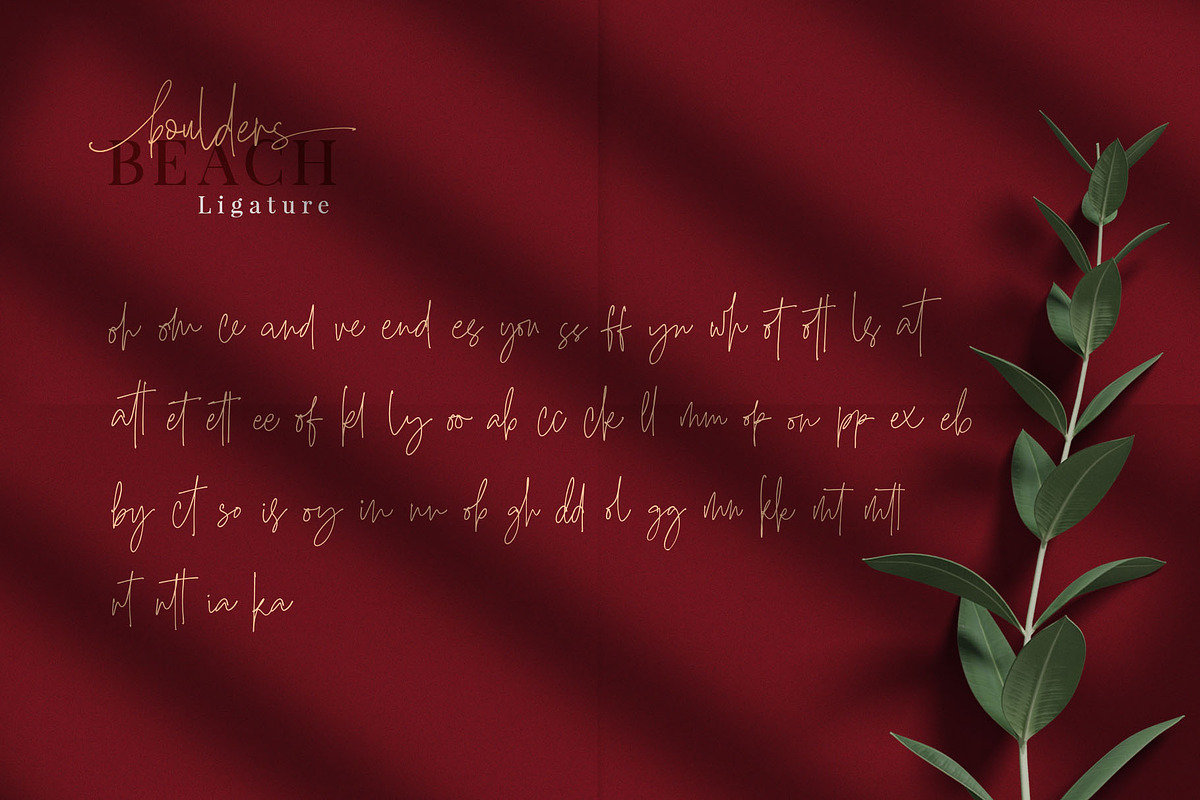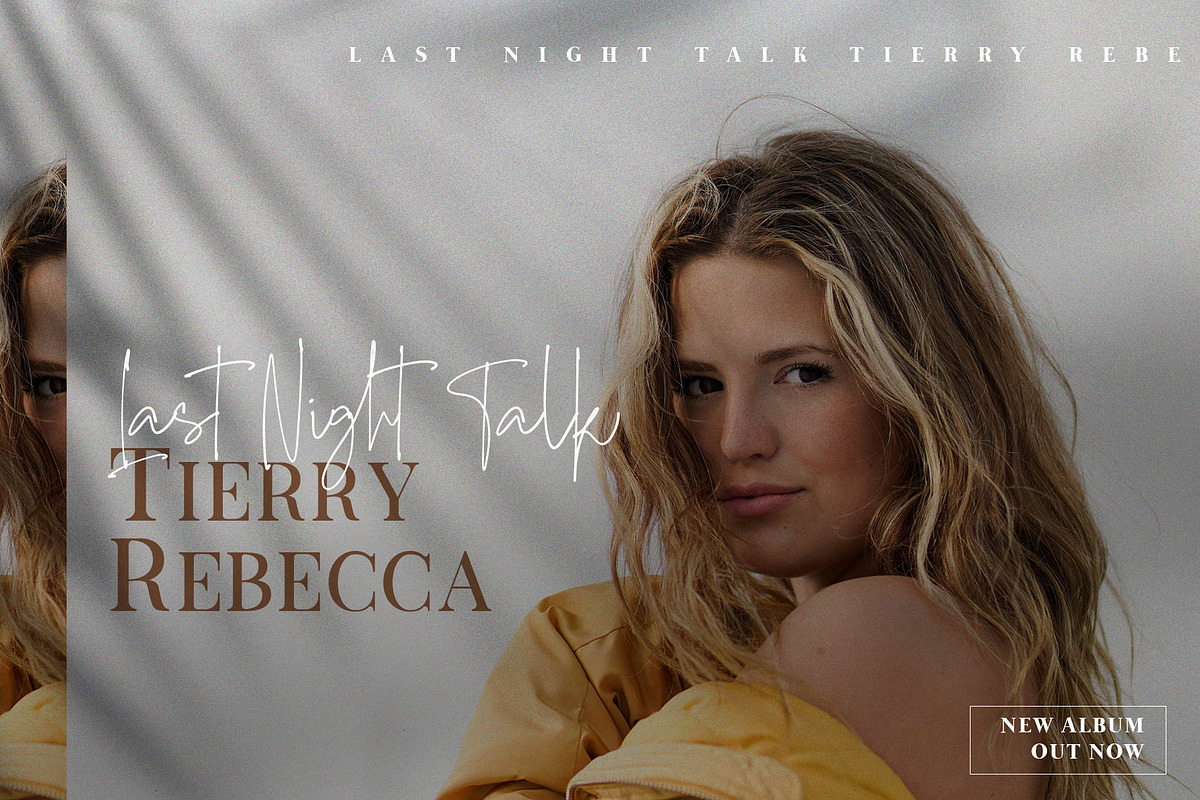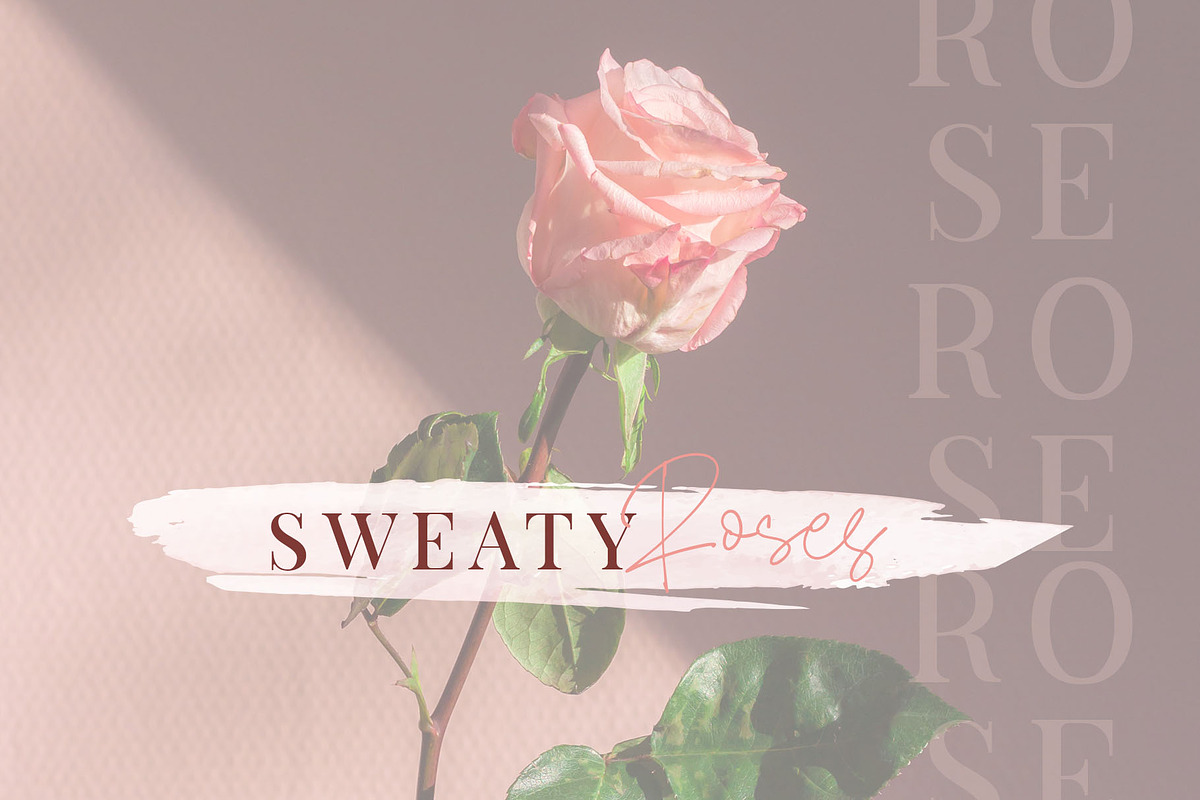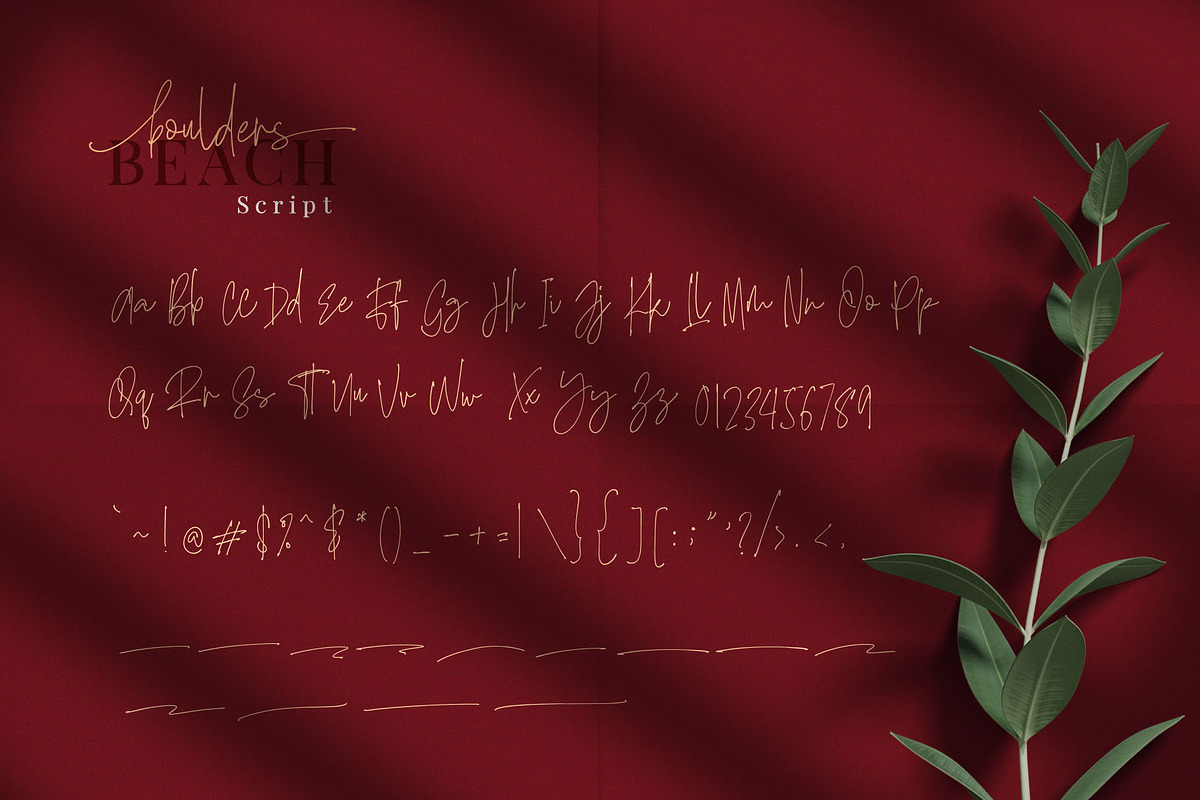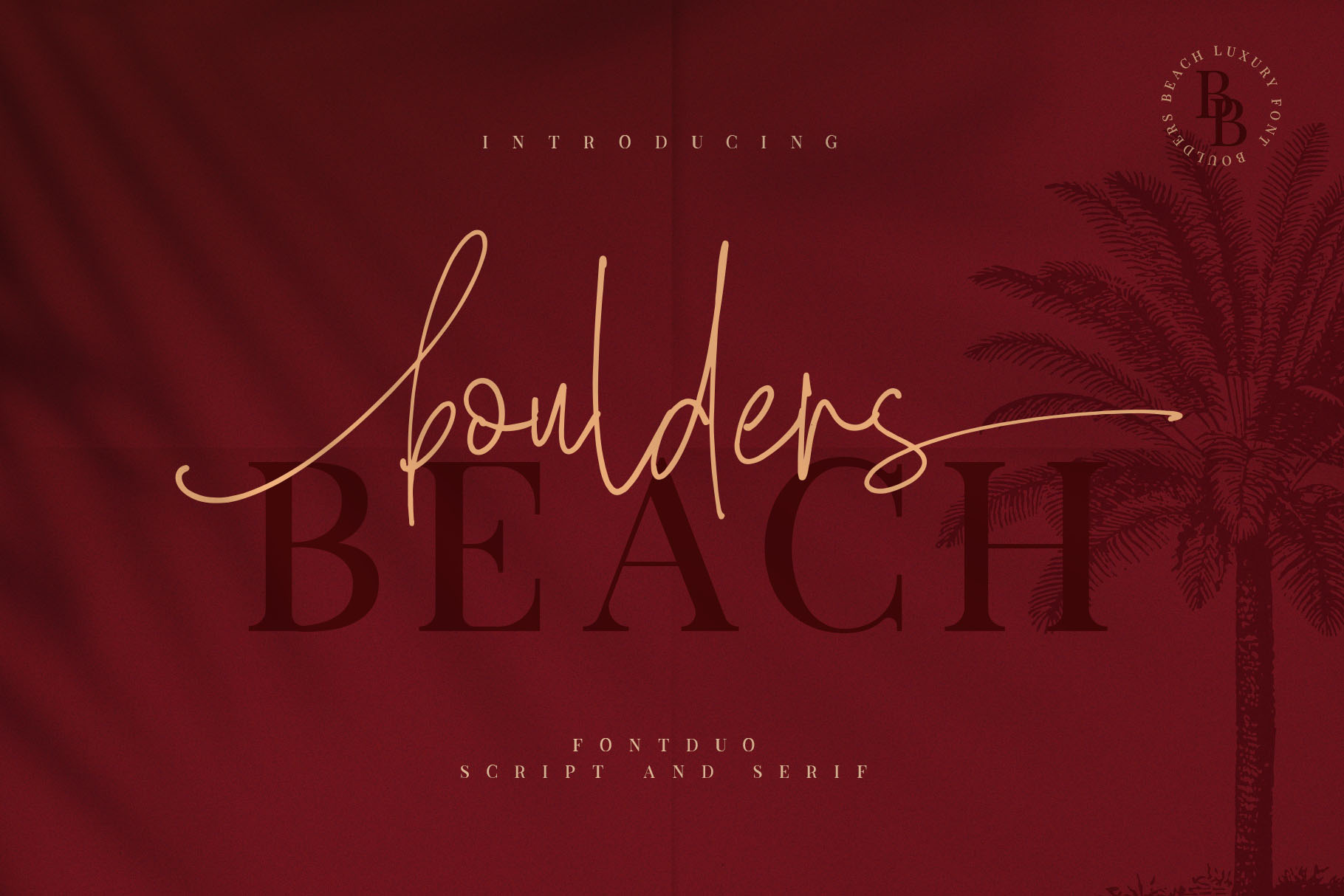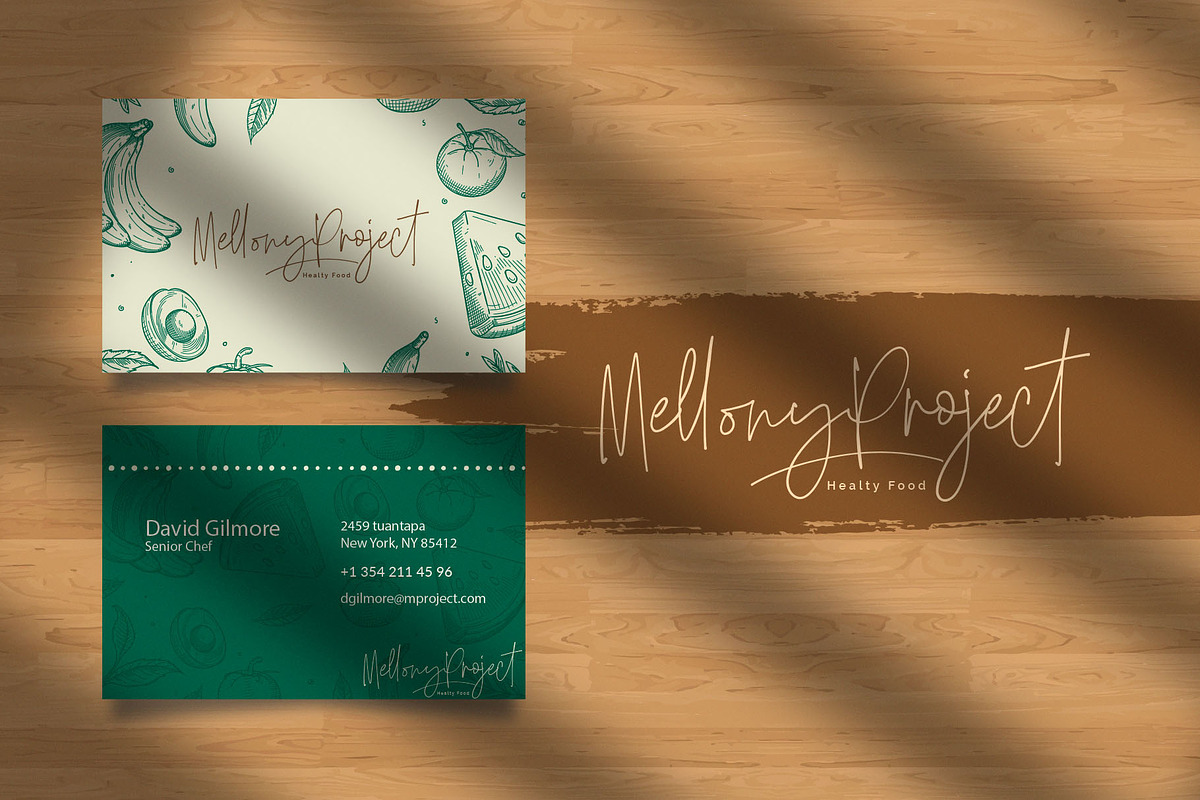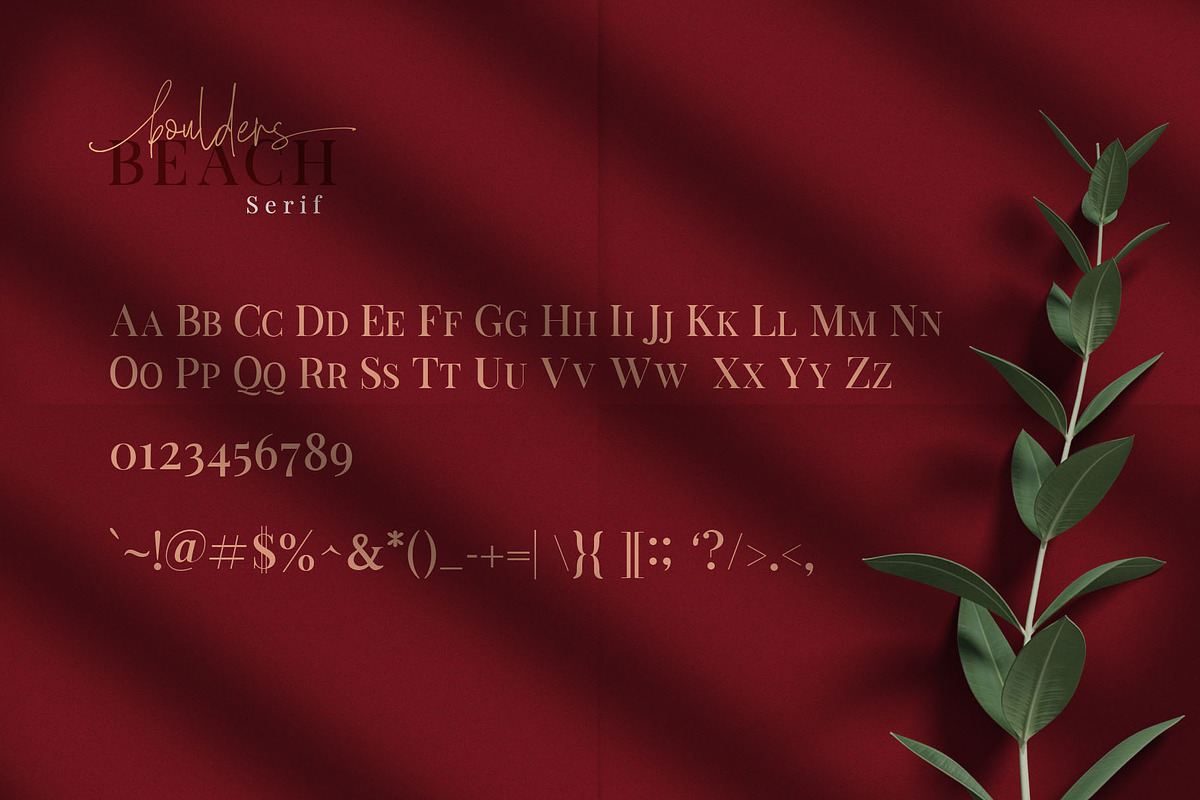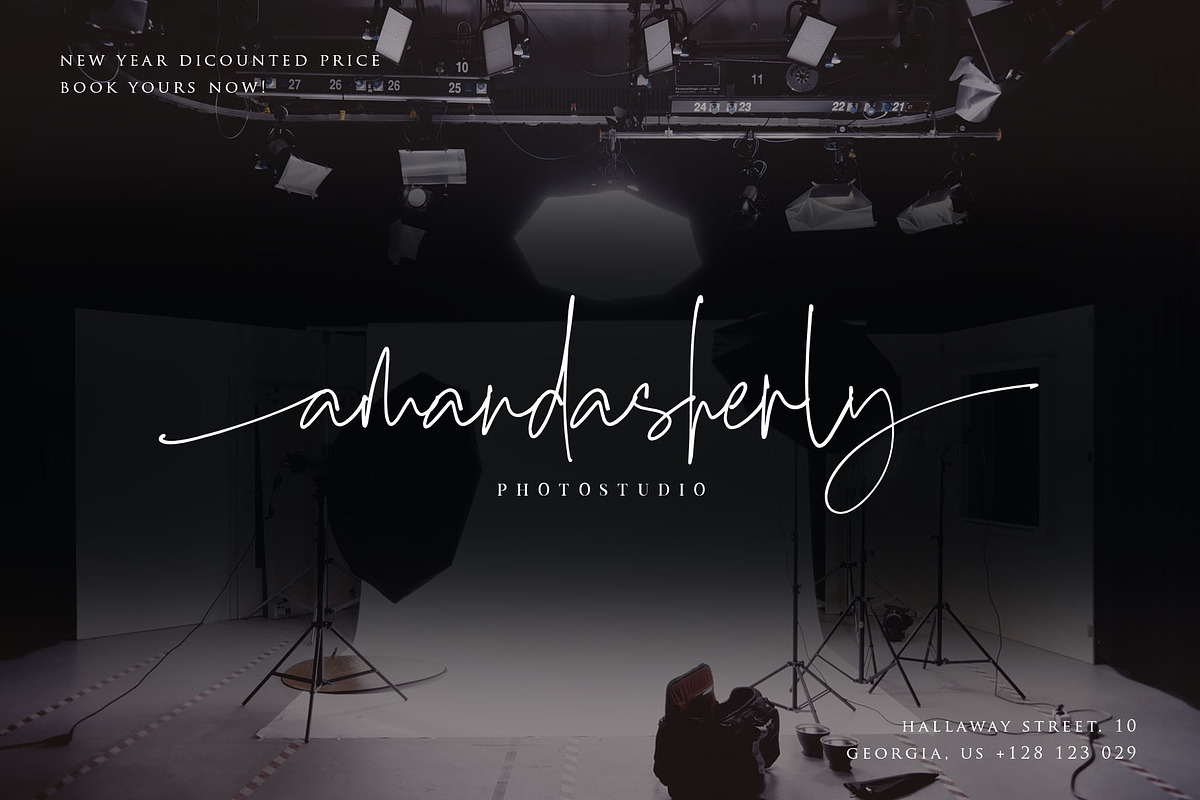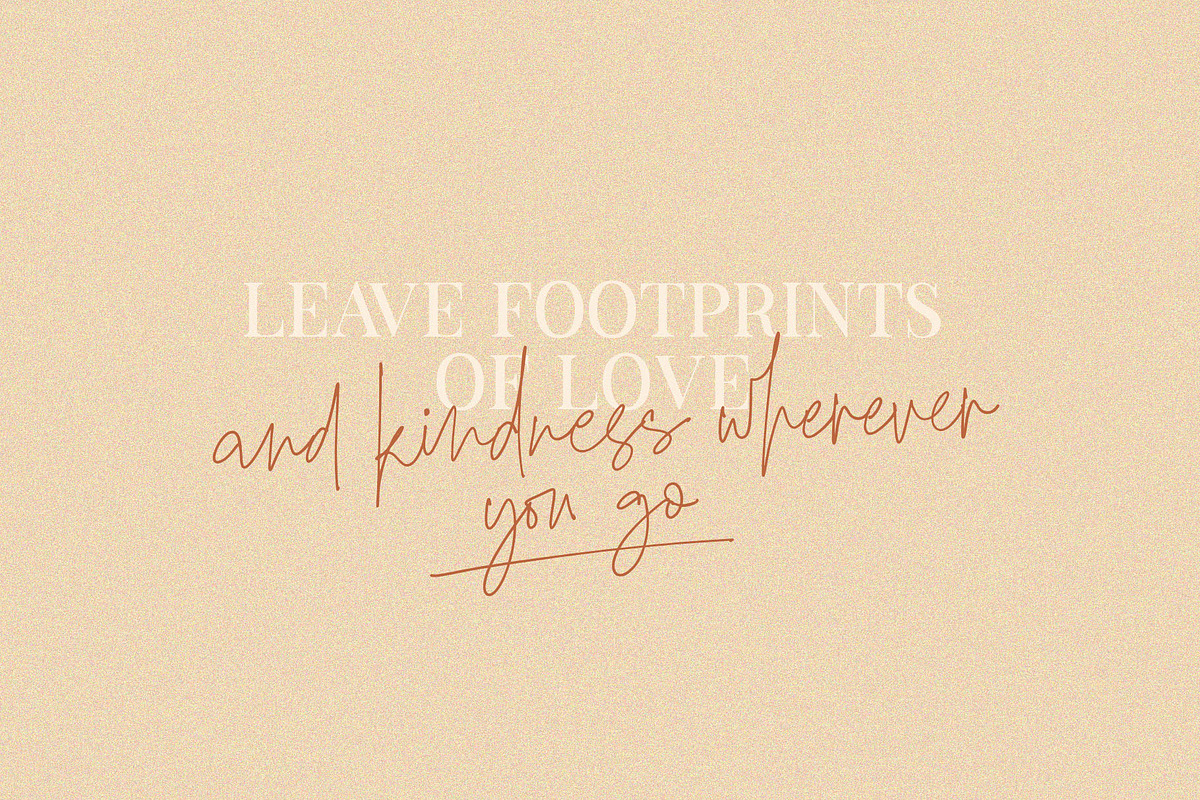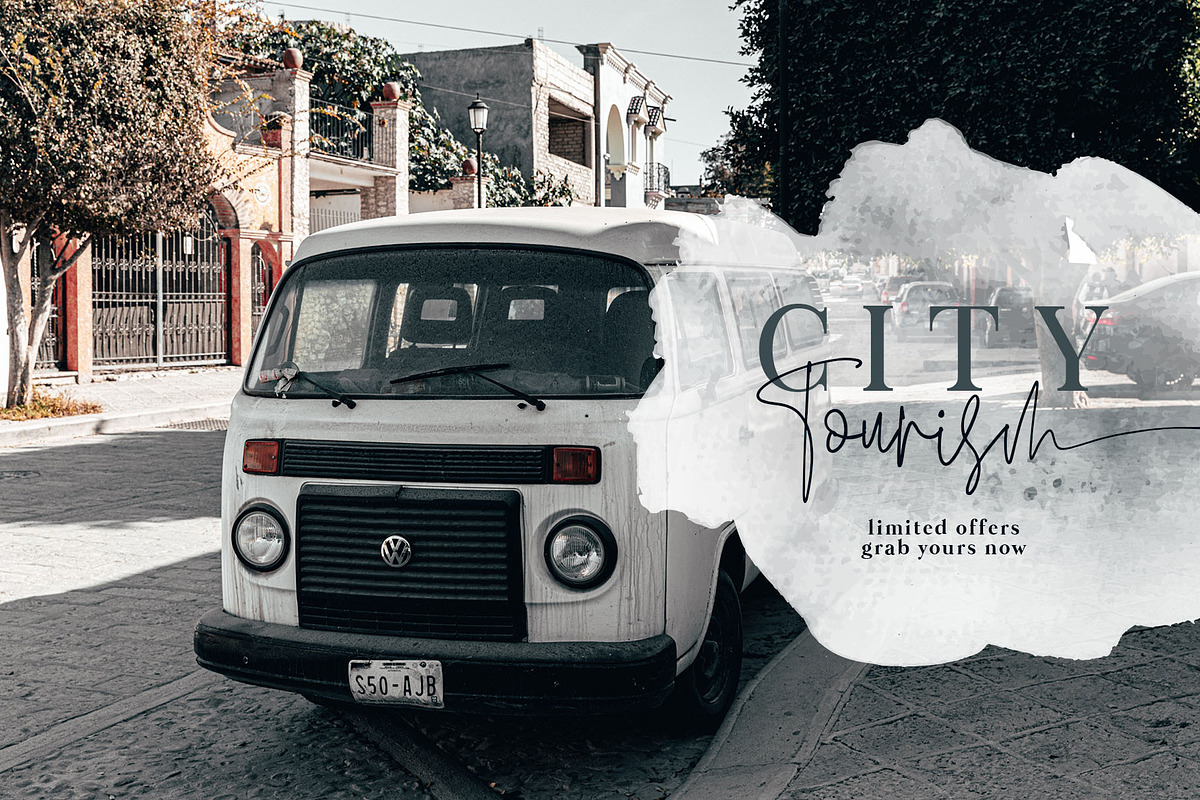
Boulders Beach - Font Duo
Hello meet our new font duo with Modern Elegant Style. This font is perfect for logo, invitation, stationery, wedding designs, social media posts, advertisements, product packaging, product designs, label, photography, watermark, special events or anything. Features :
I loved this font - I was using the script one on a website. However, on some browsers each word had a long tail at the end, instead of just the last word in the sentence.. Making it unusable. I reached out to the creator but didn't hear back. So wish I could have used it!
This is a simple and sophisticated script with just the right slant. Another reviewer noted that flourishes seem to come and go - this is true, depending on where the end of the word falls on the line. I actually enjoy that! Whether intended or not, the effect makes it "feel" more like actual handwriting. Overall, this is a lovely font.